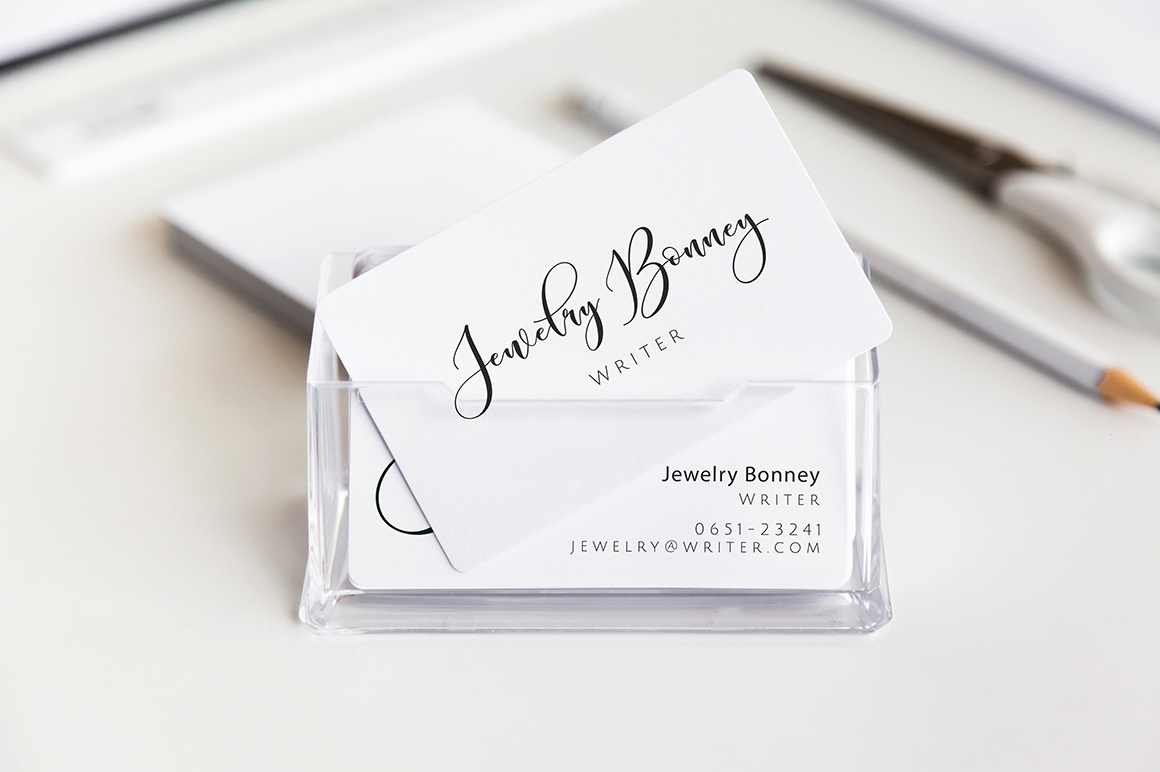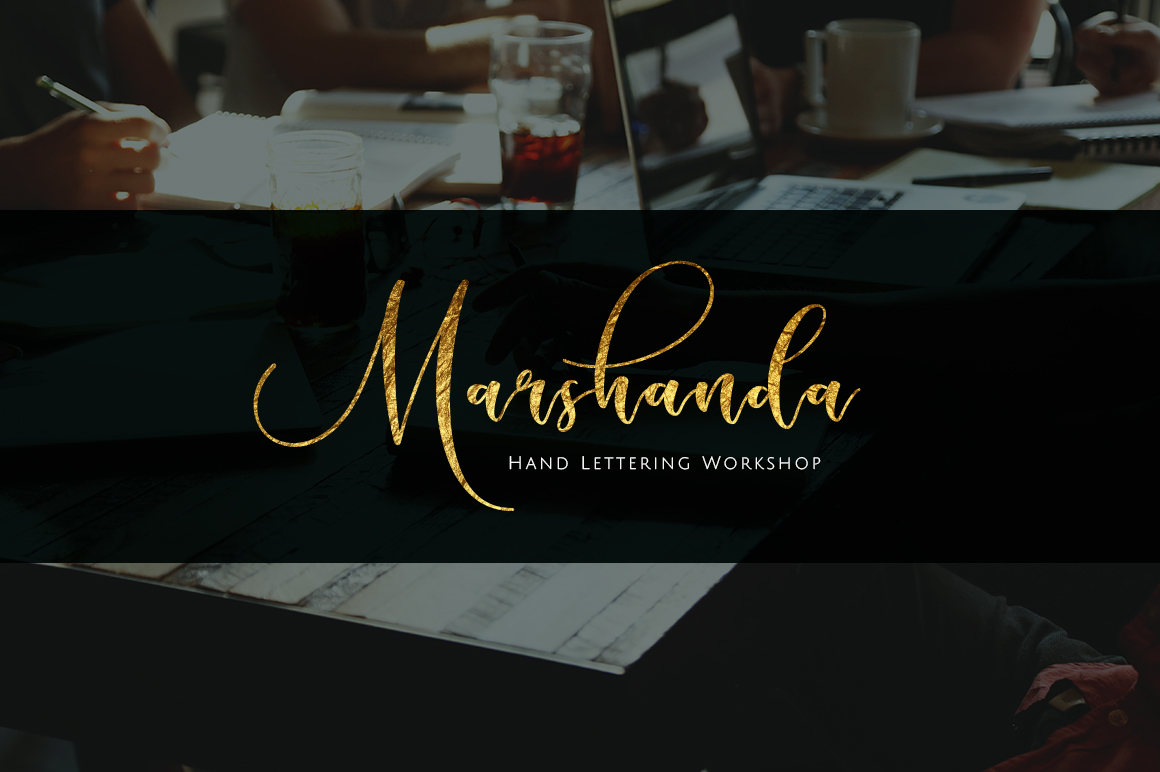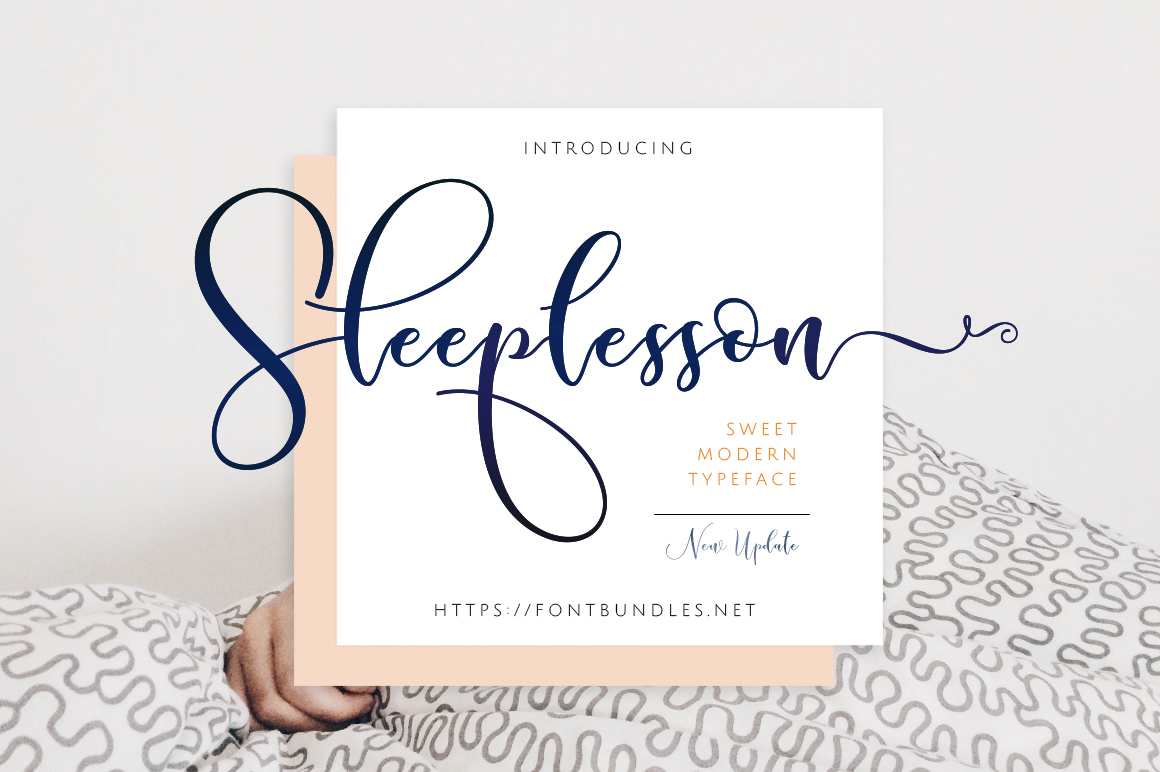
Sleeplesson
Sleeplesson Script Font
A script font with a smooth handwritten style. Comes with 434 glyphs. Sleplesson is perfect for branding projects, homeware designs, product packaging, use in name card, invitation cards, etc. Simply as a stylish text overlay to any background image or anything requiring a sprinkle of elegance.